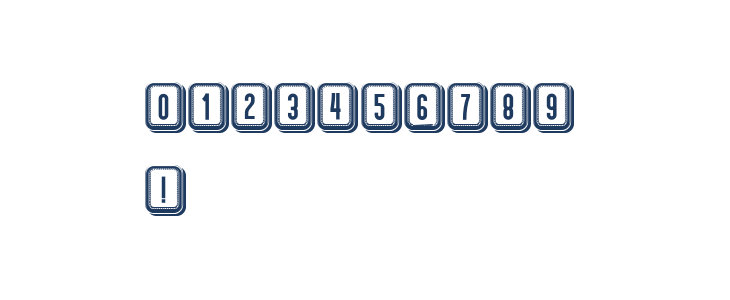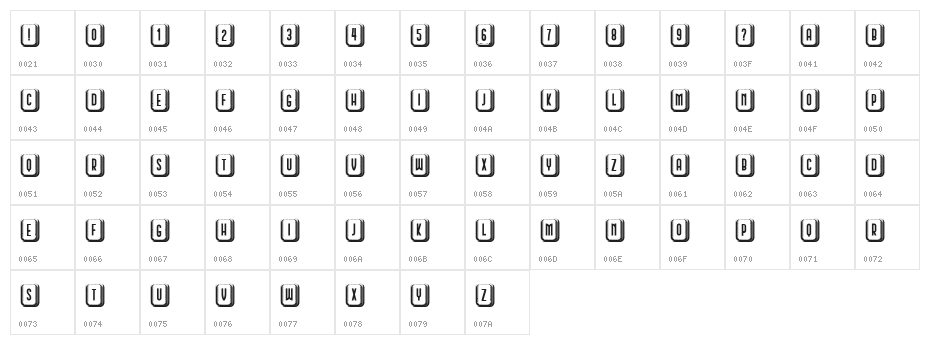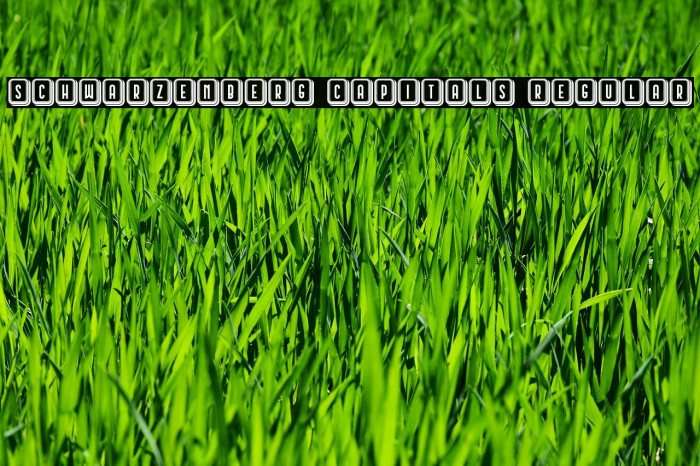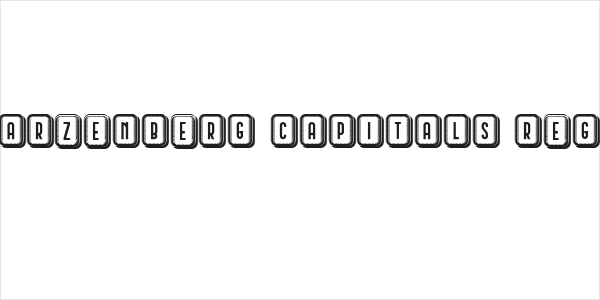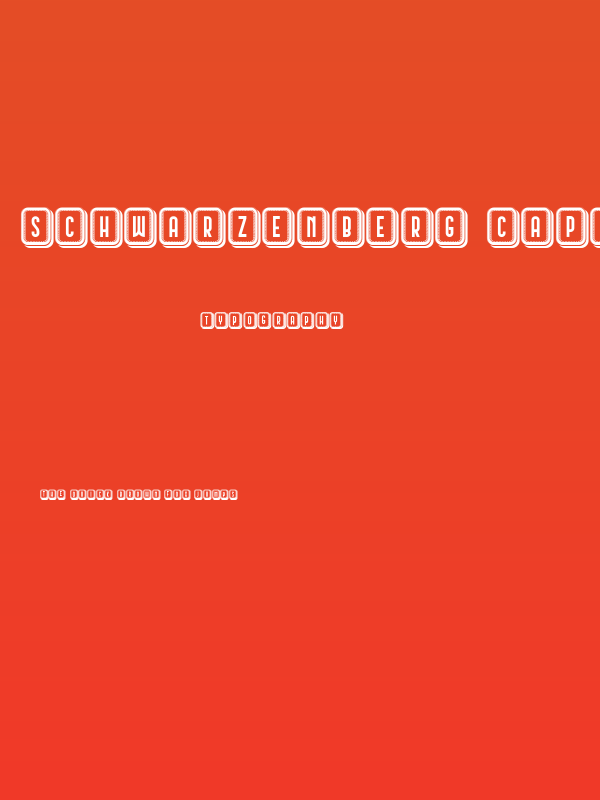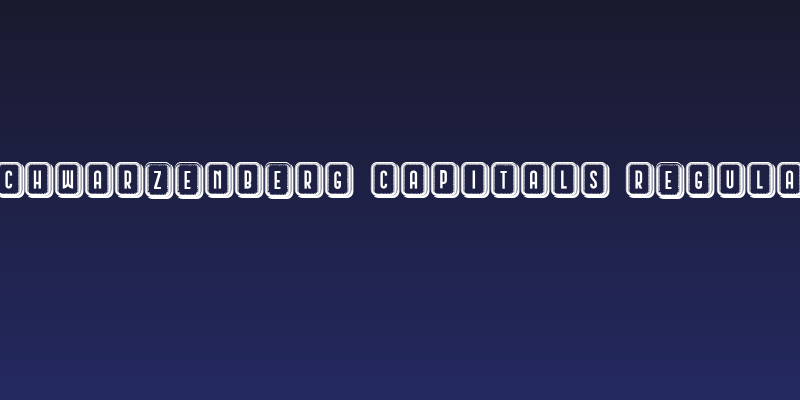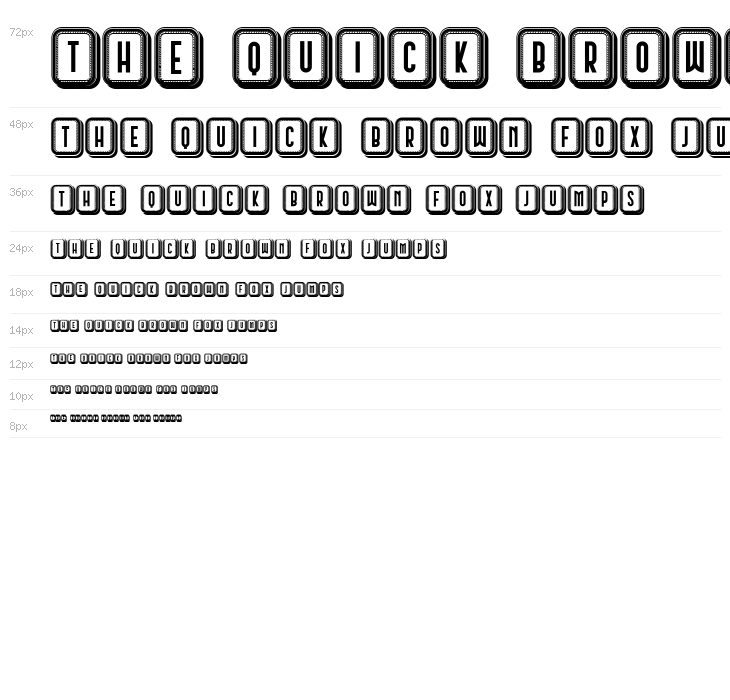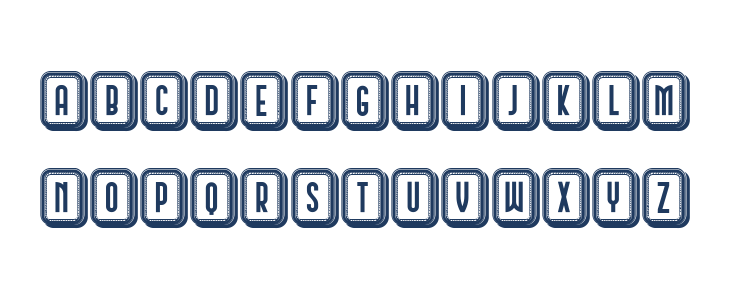
Schwarzenberg Capitals Regular Font
Schwarzenberg Capitals Regular Description
This font features a bold, decorative style with a strong emphasis on geometric shapes. Each character is enclosed in a rectangular border, giving it a unique, almost three-dimensional appearance. The letters are uppercase, with consistent height and width, creating a uniform look. The design includes a shadow effect that adds depth and a vintage feel. The numbers and special characters follow the same stylistic approach, ensuring cohesion across all elements. This font is ideal for projects that require a standout, eye-catching typeface.
Overall StyleVintage
Proposed ProjectsIdeal for posters, signage, branding, and any project needing a bold, decorative typeface.